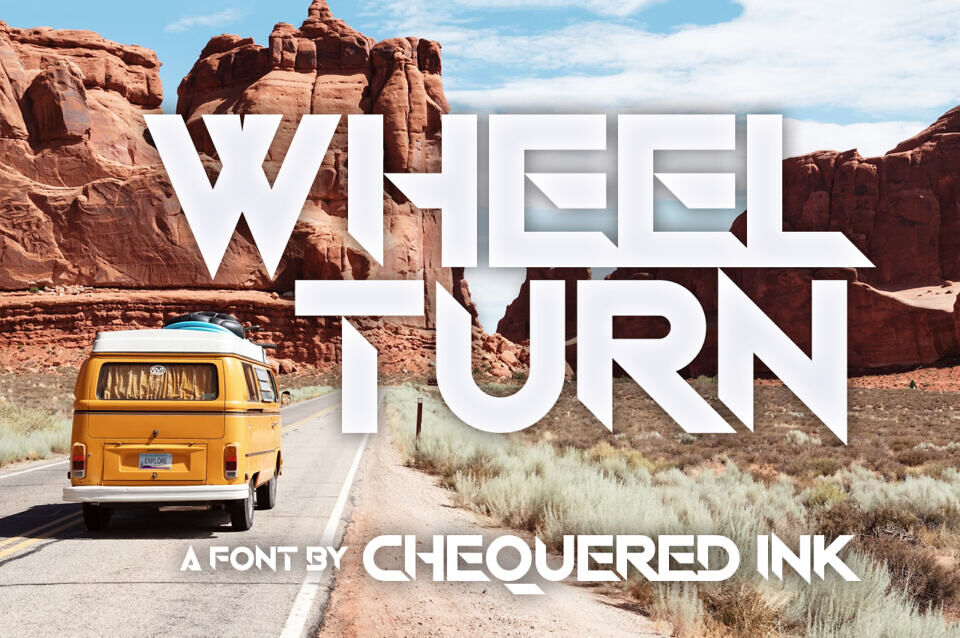
Wheel Turn Font
Wheel Turn is a bold futuristic display font inspired by speed, motion, and automotive design. Its sharp geometric cuts, slanted details, and techno aesthetic create a dynamic, high-energy look perfect for racing graphics, gaming titles, sci-fi posters, logos, and modern branding.
With its sleek industrial style and strong visual impact, Wheel Turn brings a fast-paced, modern edge to any creative project.